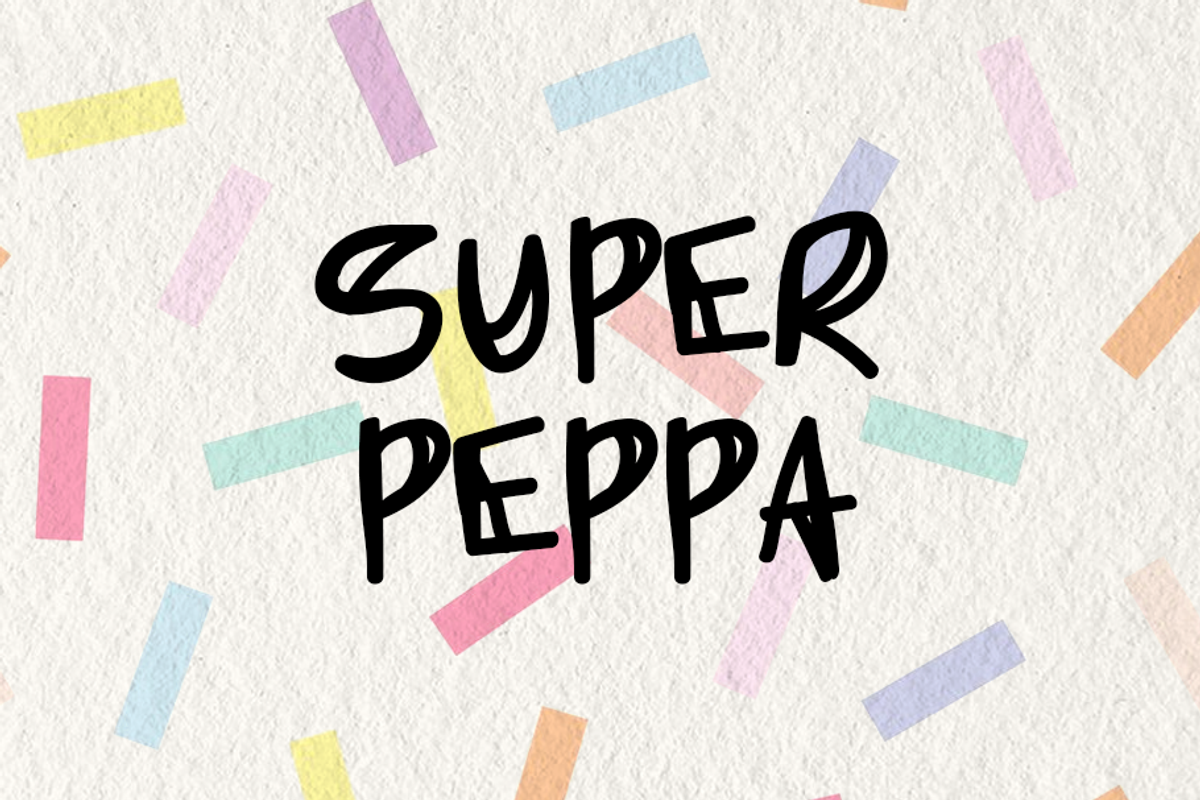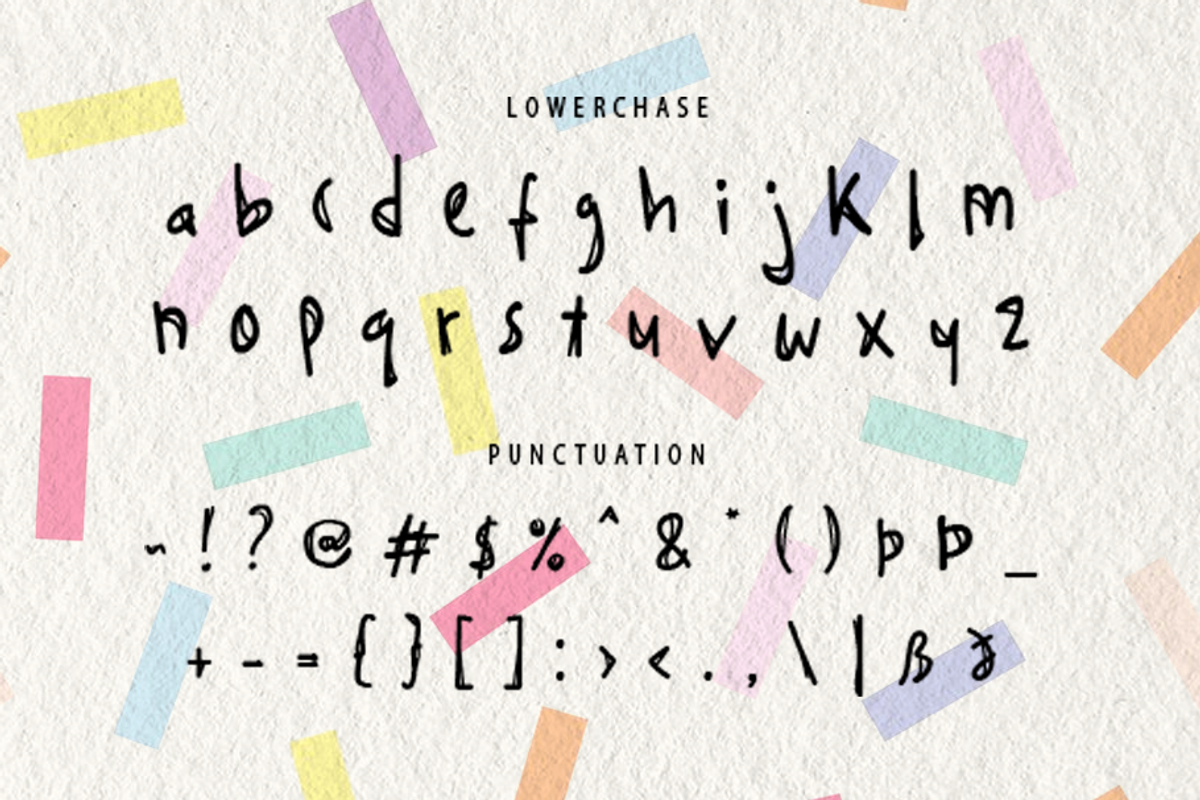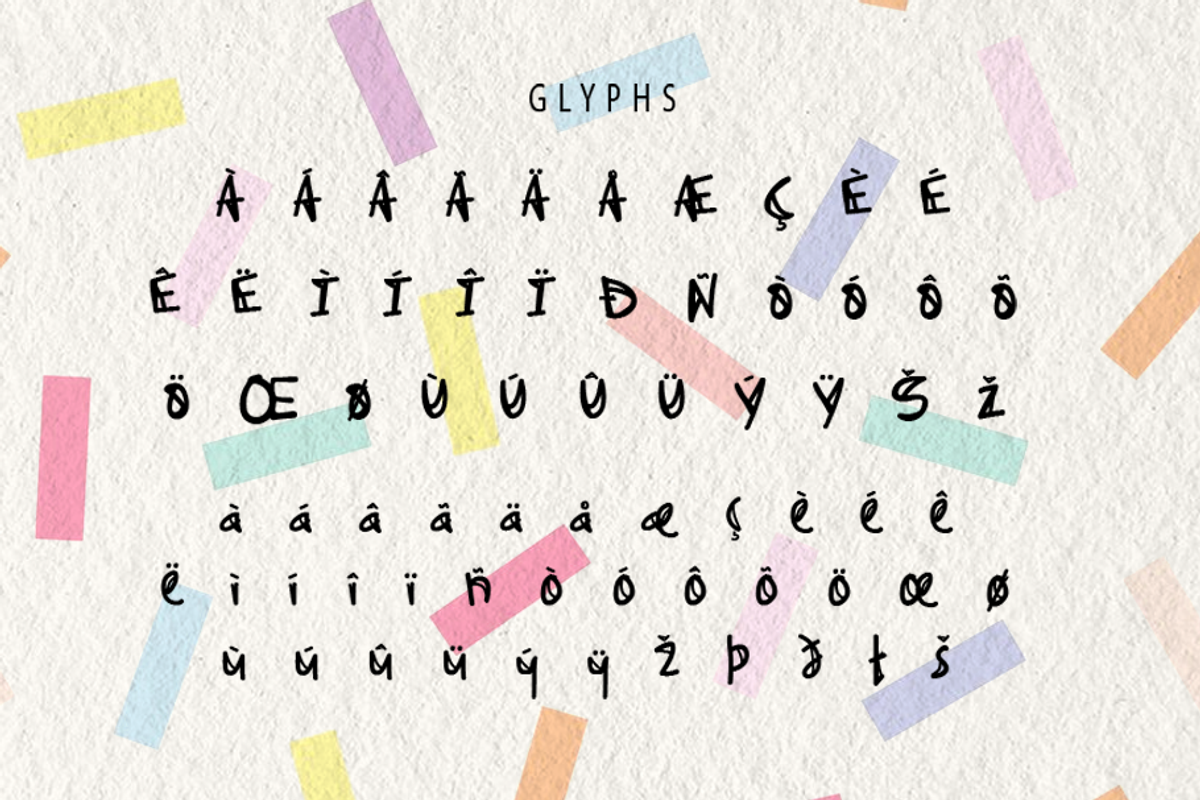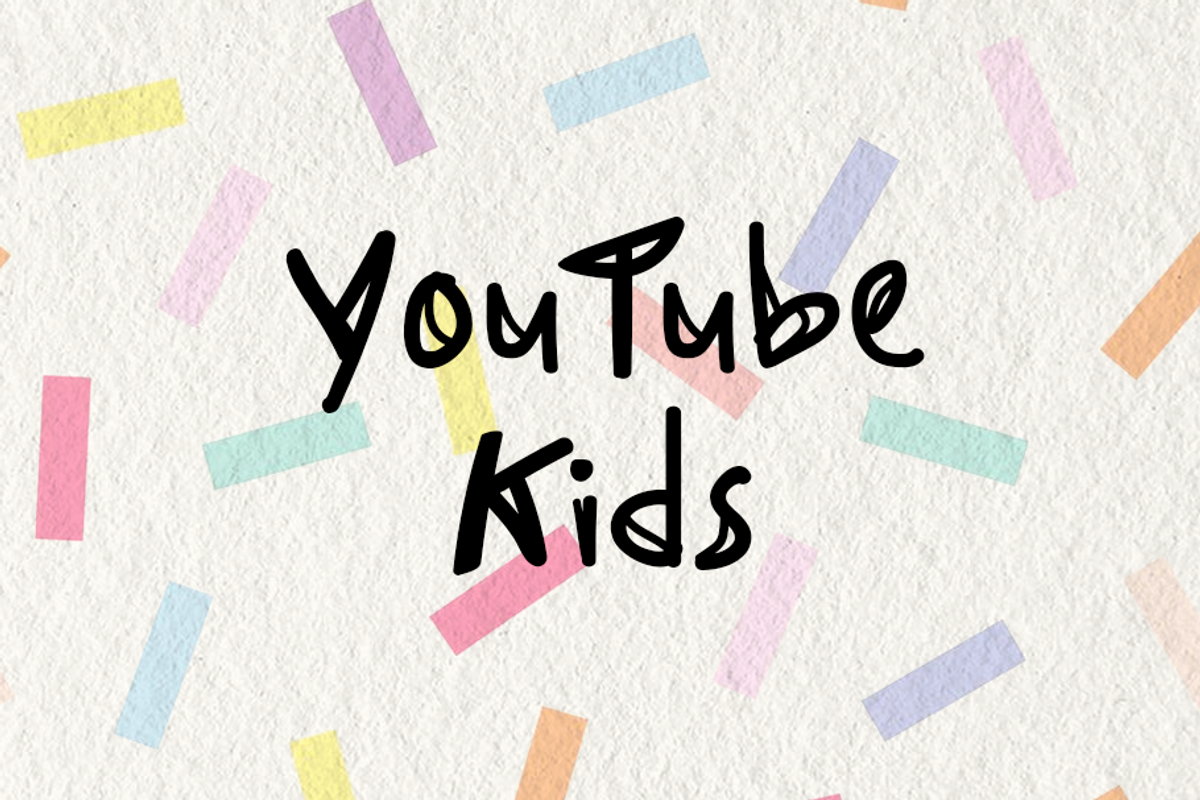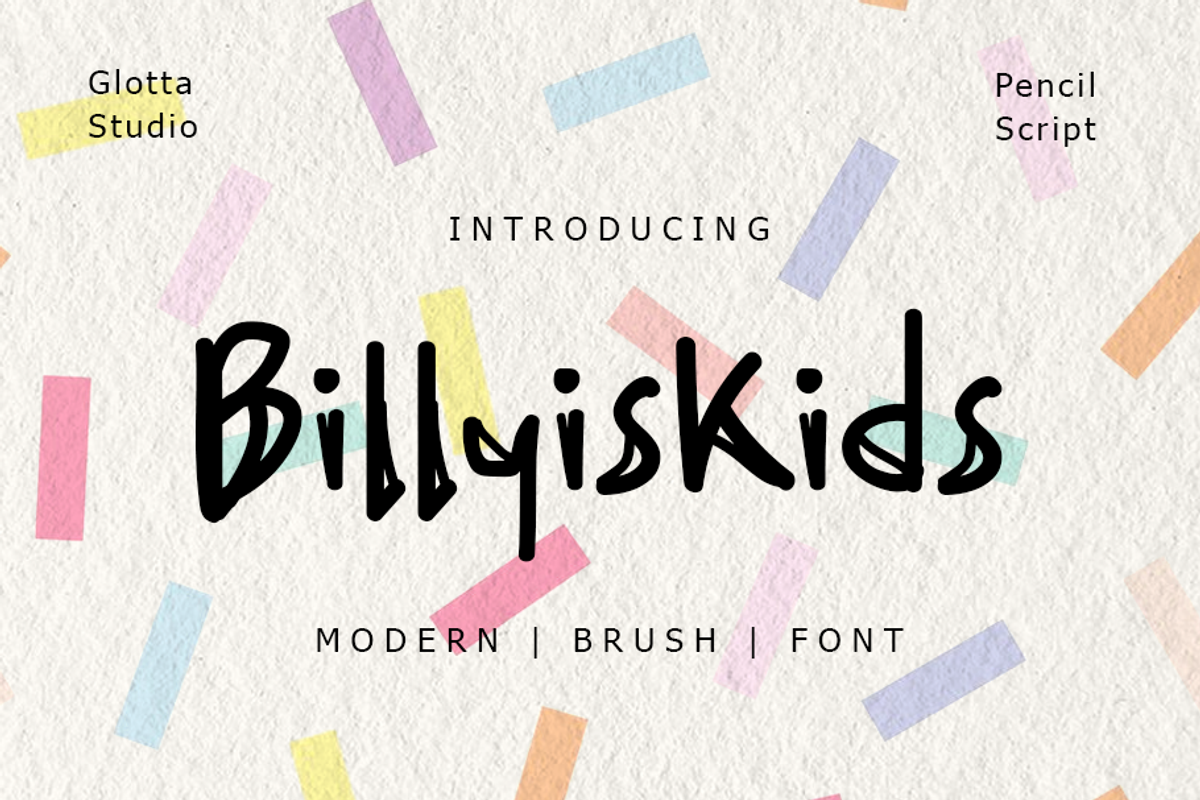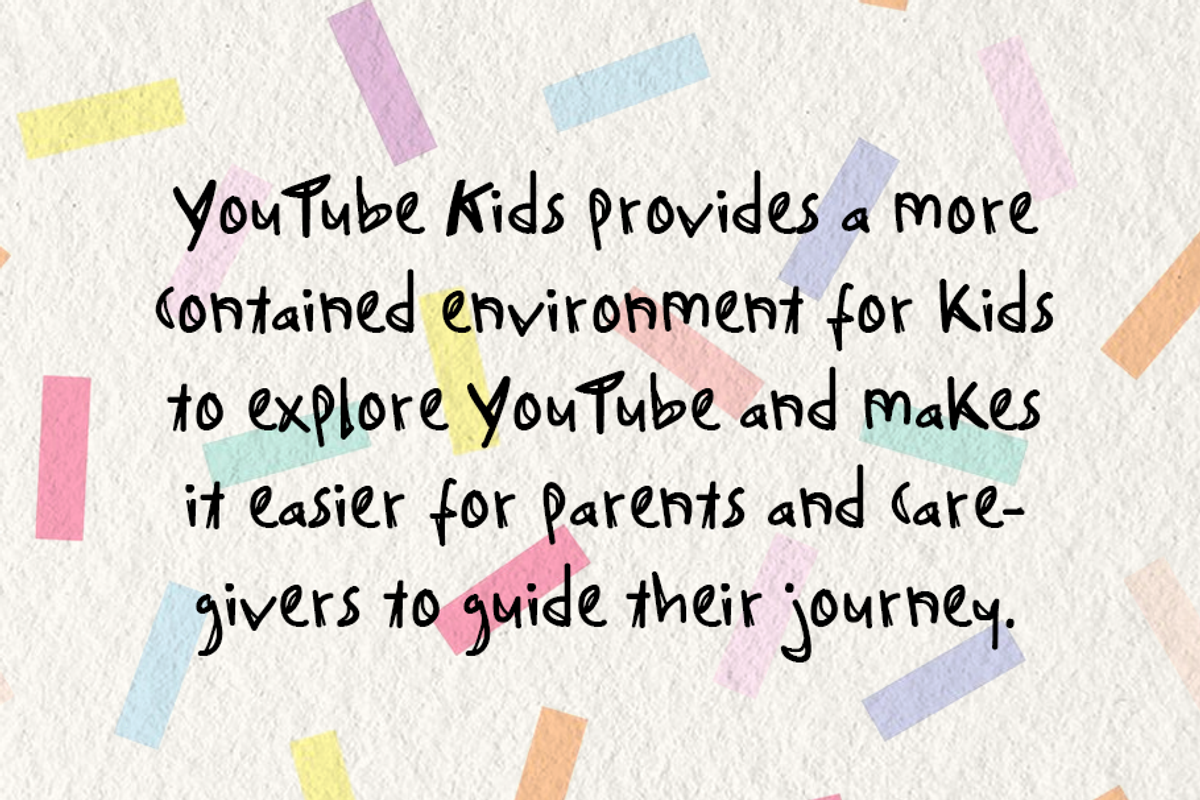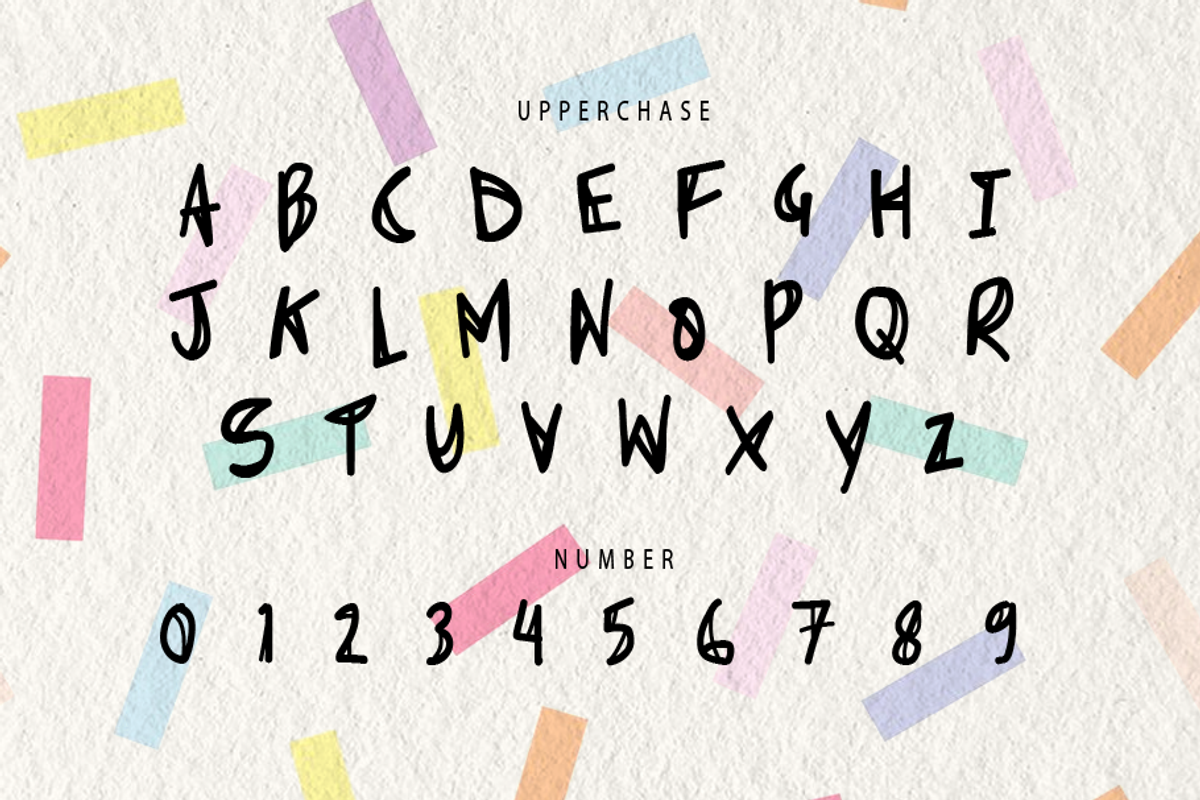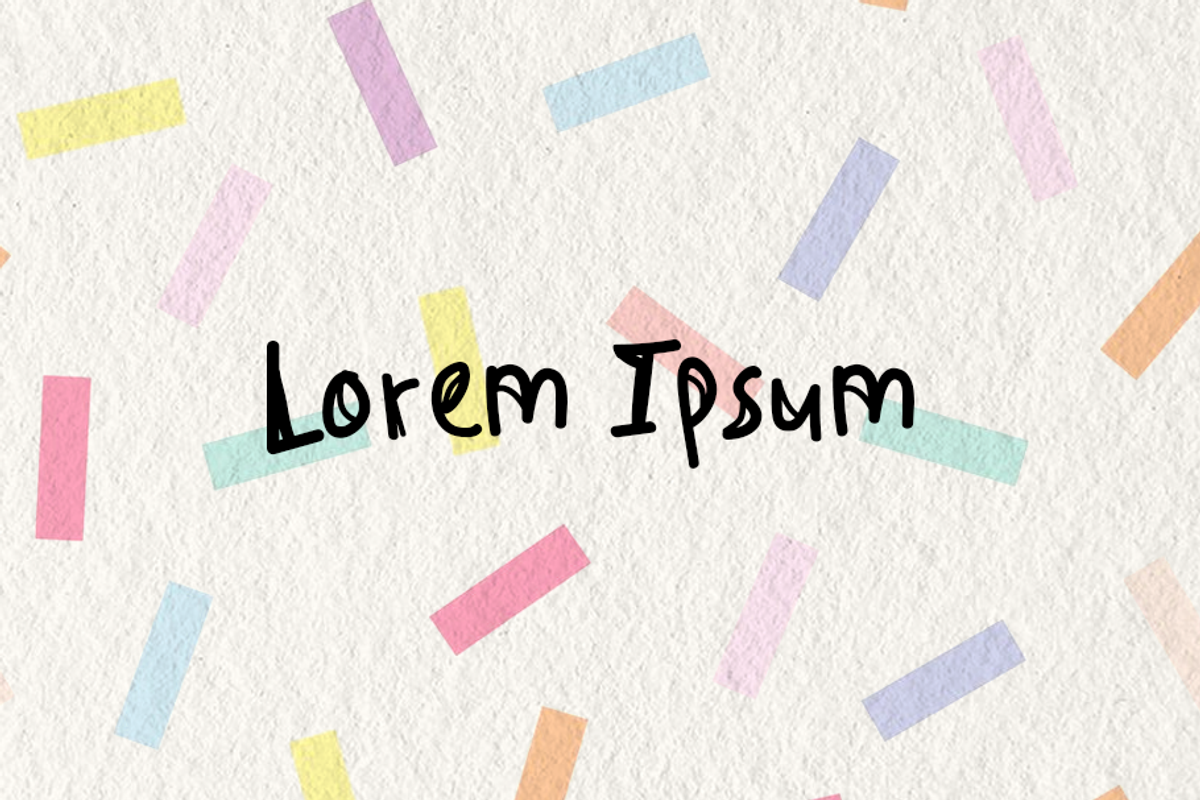
Billyiskids
Billyiskids is brush font it’s looks funny, kids and easy to use. Billyiskids is the great choice for watermark on movie industry, poster design, quotes, story books, and many other design project. Billyiskids is here to make your work or your business to high level!!! Features